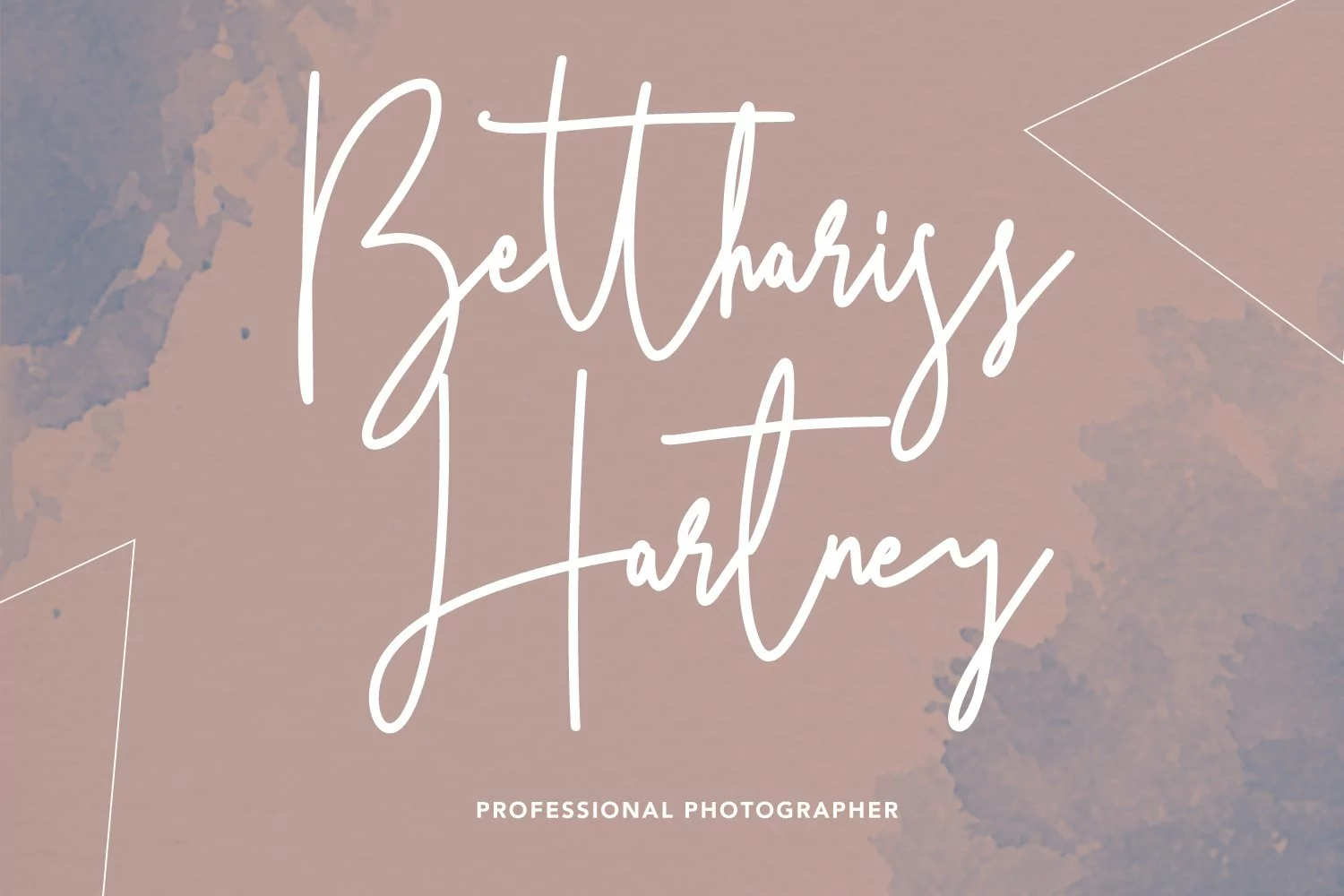
Give your designs an authentic handcrafted feel. "Hollydates Handwritten Script Font" is perfectly suited to signature, stationery, logo, typography quotes, magazine or book cover, website header, clothing, branding, packaging design and more. Included Ligatures and Alternate.